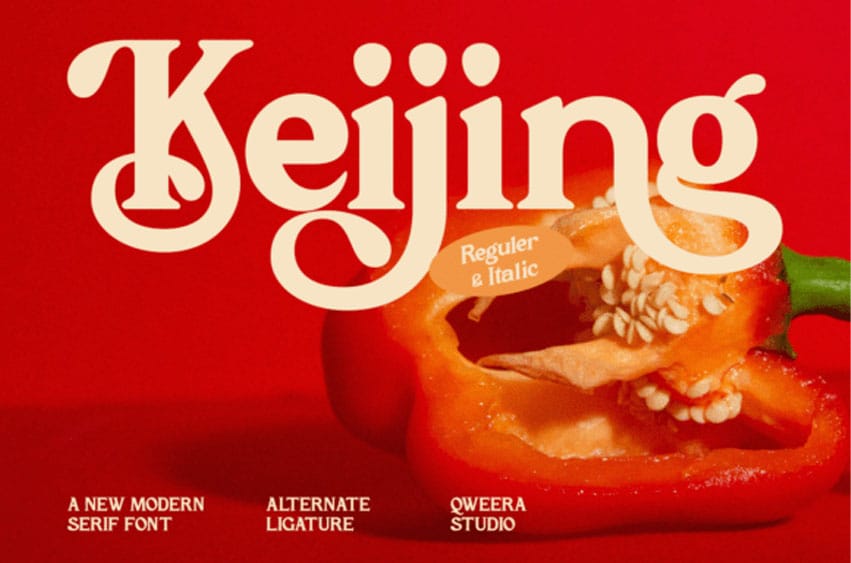
Keijing Font is a decorative modern serif designed with bold personality and playful curves. This expressive typeface is perfect for branding, packaging, posters, and creative display typography.
With unique letterforms and stylish alternates, Keijing delivers modern retro character and distinctive branding appeal.
Perfect for designers looking for unique typography with strong visual presence.